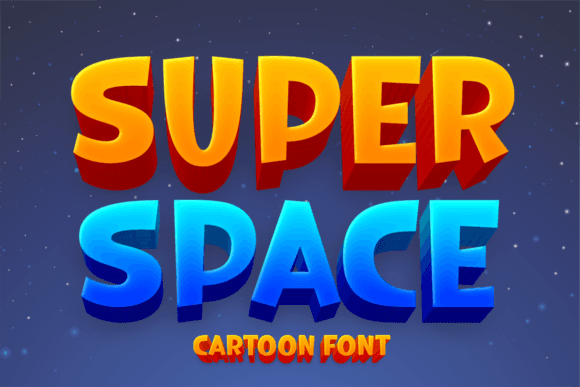
Super Space Font for Cricut, Silhouette and Printable Designs
The Super Space Font is a custom-designed typeface with a futuristic edge, ideal for use in cutting machines and printable projects. This font delivers crisp readability and high character impact, making it perfect for bold titles, children's crafts, and intergalactic-themed merchandise.
Crafted for versatile application, this font integrates seamlessly into both vinyl cutting workflows and printable layouts, offering scalability and clean cuts across a range of software platforms. It supports thematic production for sci-fi, galaxy, and STEM educational designs.
- Perfectly themed for space and futuristic projects
- Easy to cut and weed with popular machines
- Scales beautifully for both print and digital use
- Kid-friendly and high-energy design
A: Yes, the bold design and smooth curves make it ideal for vinyl cutting and easy application.
A: Yes, the font includes full alphanumeric characters and basic punctuation for complete usability.